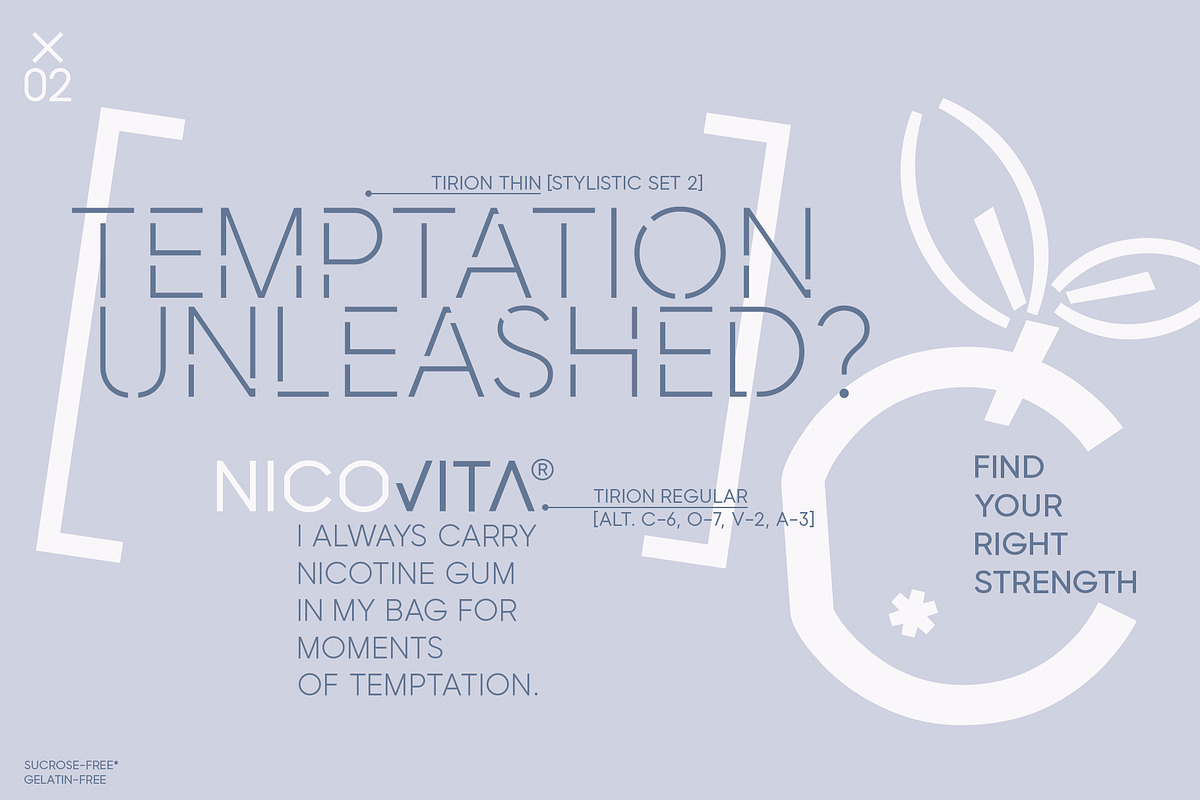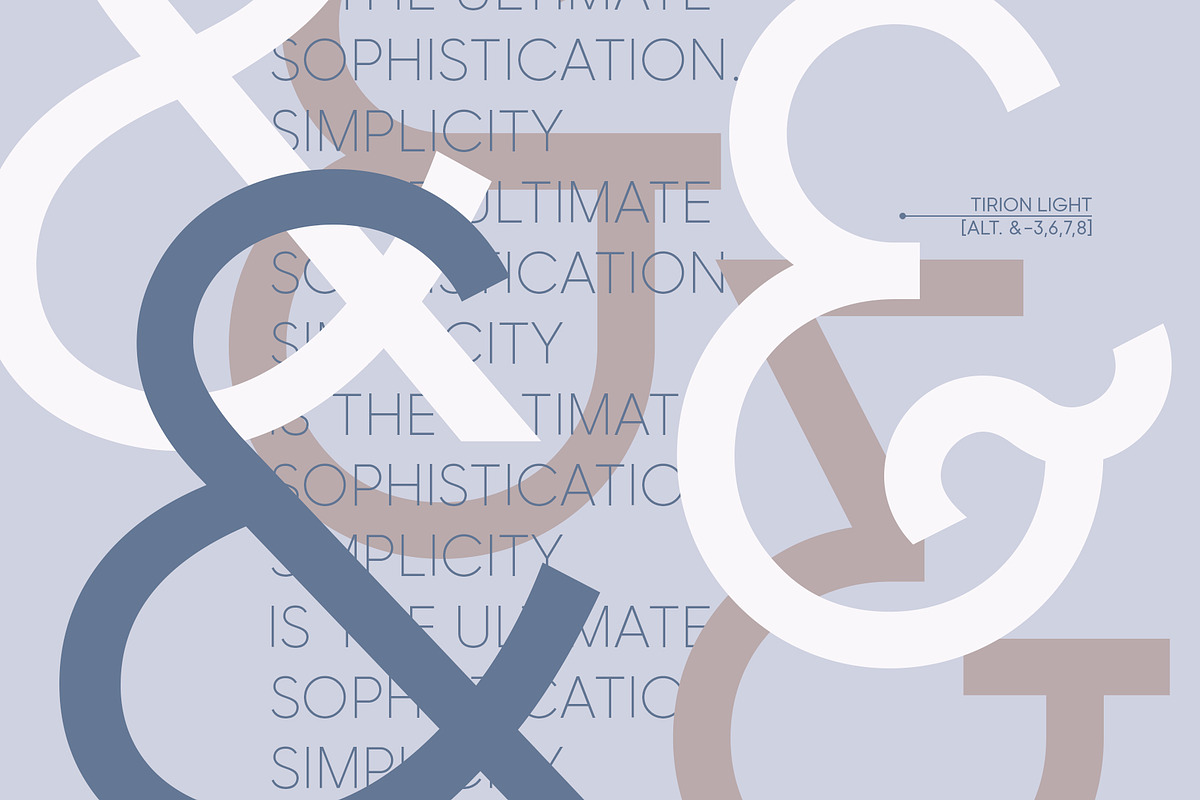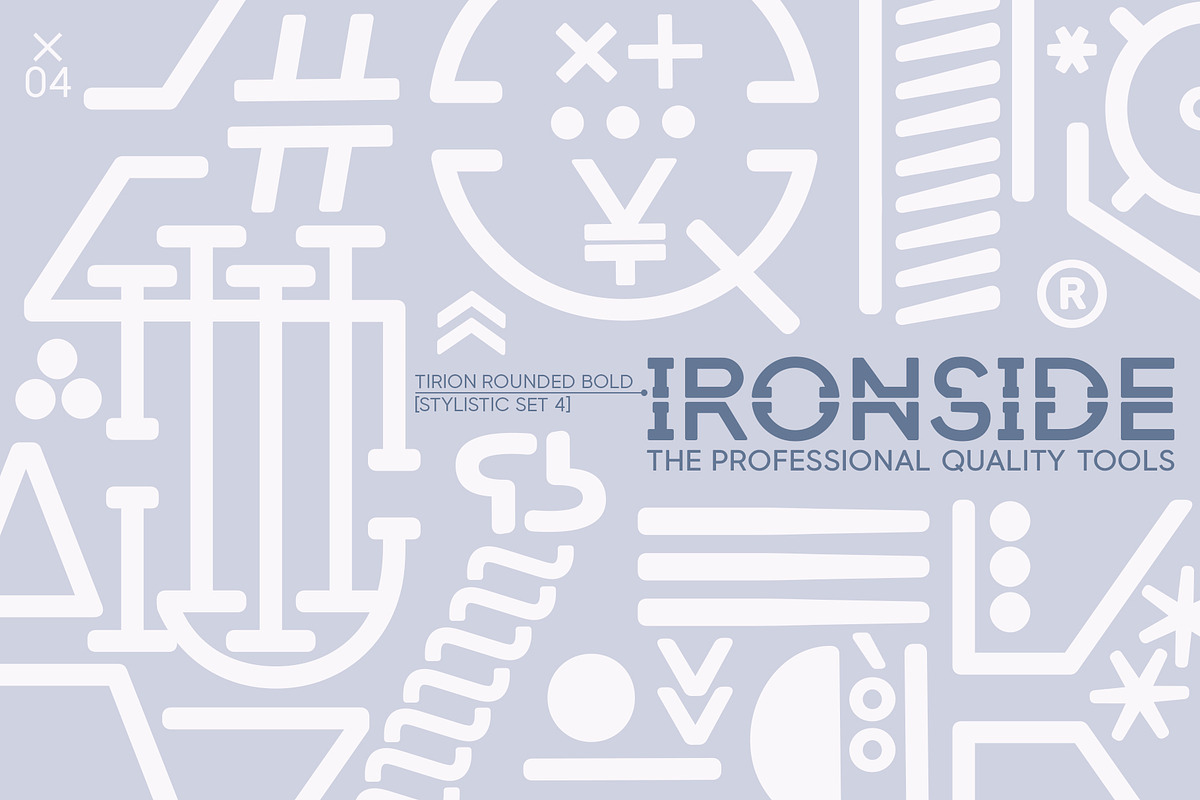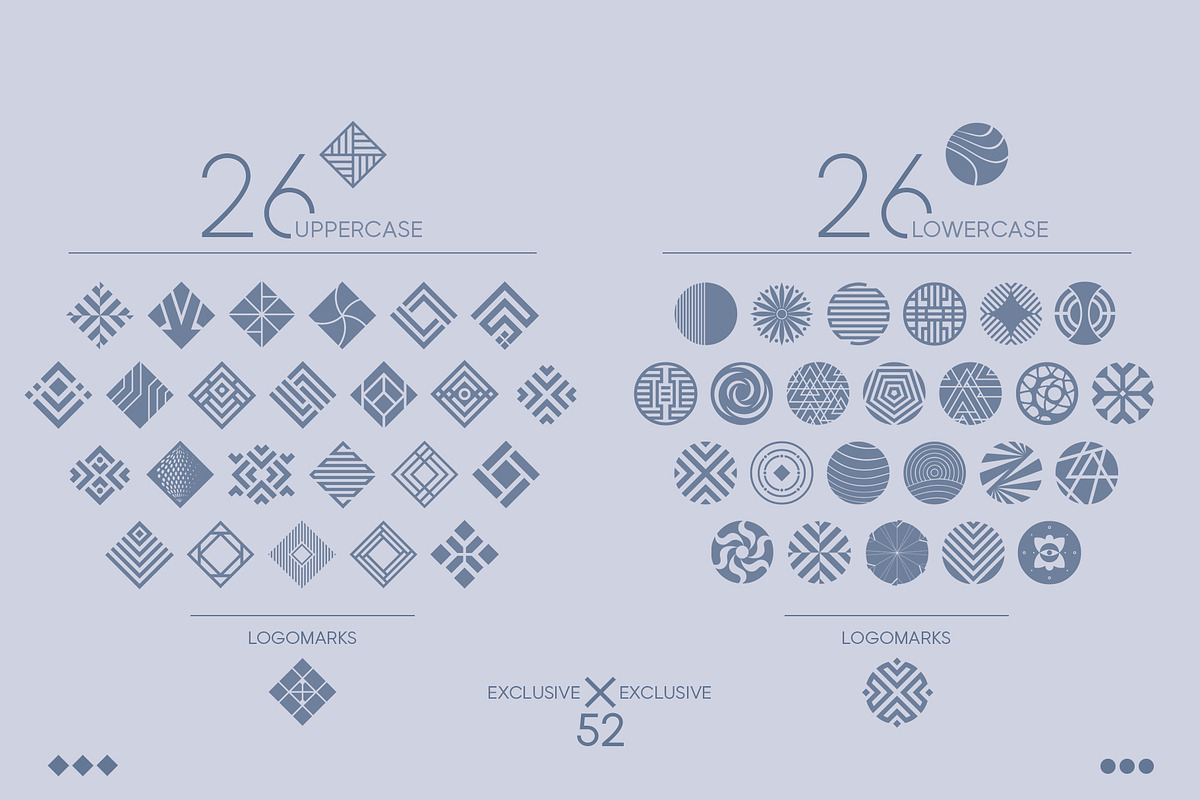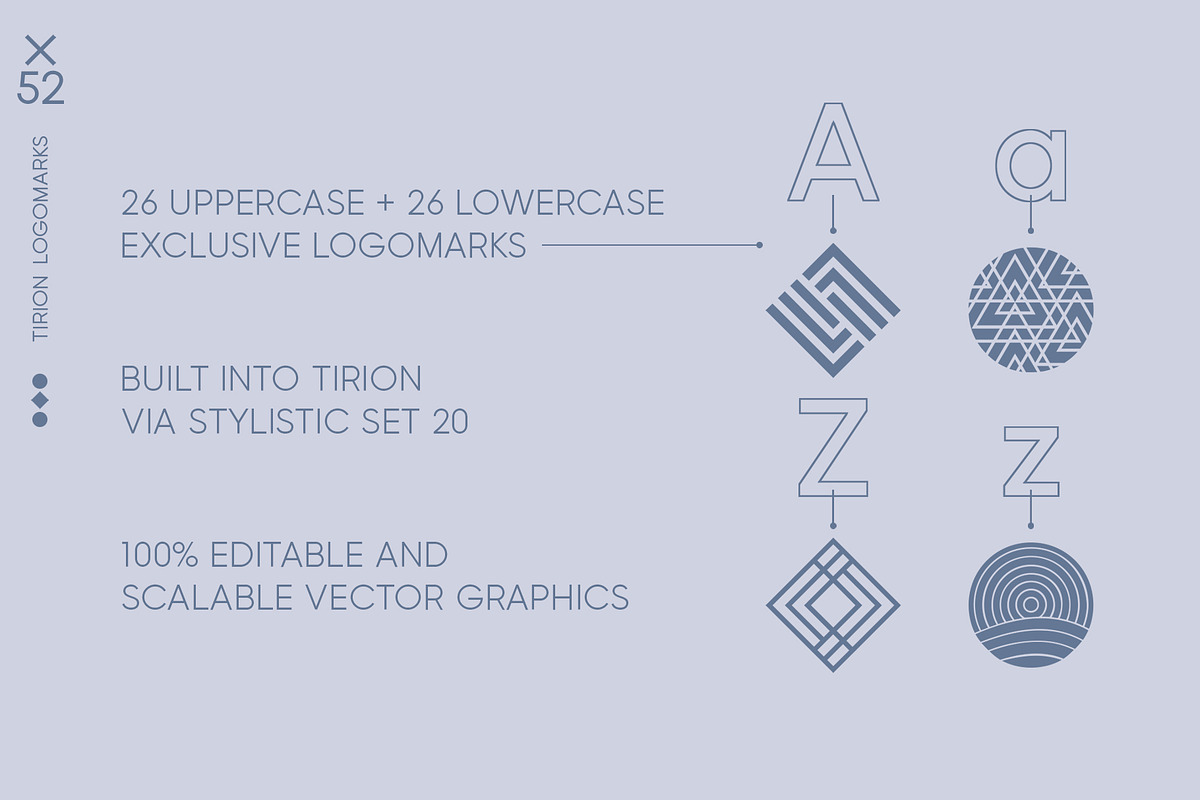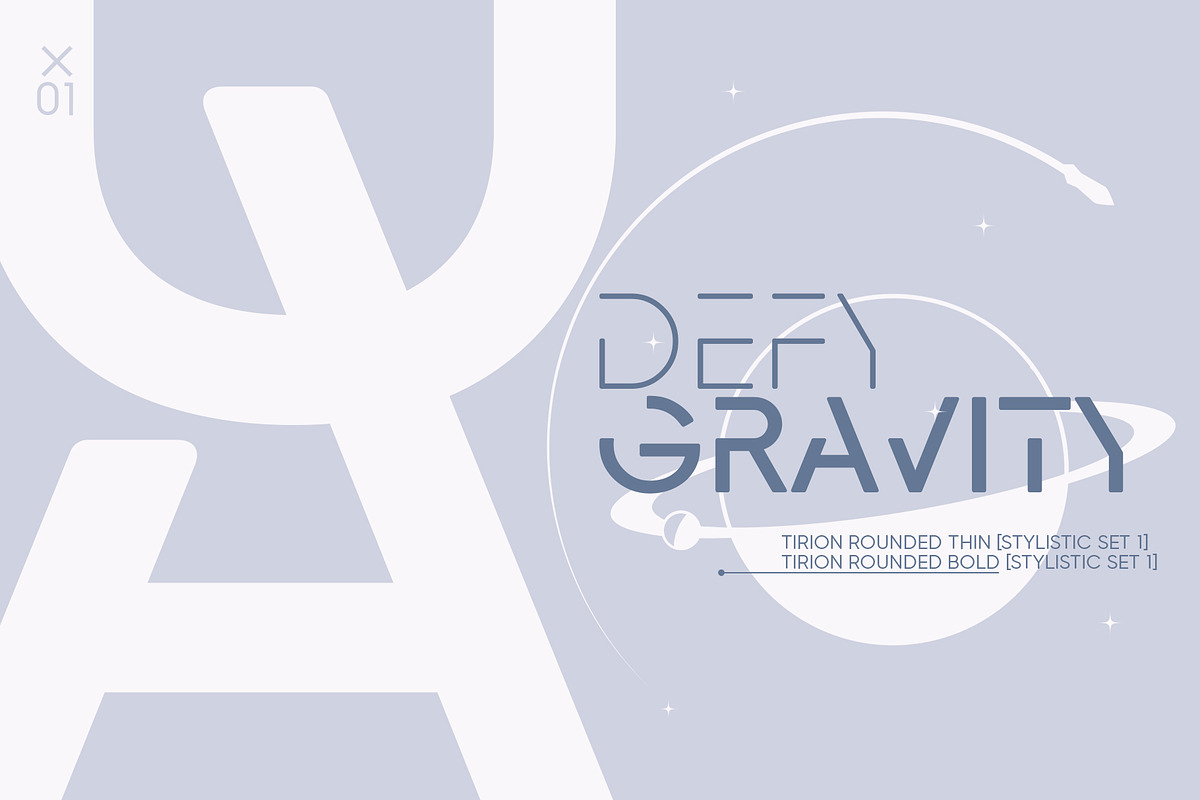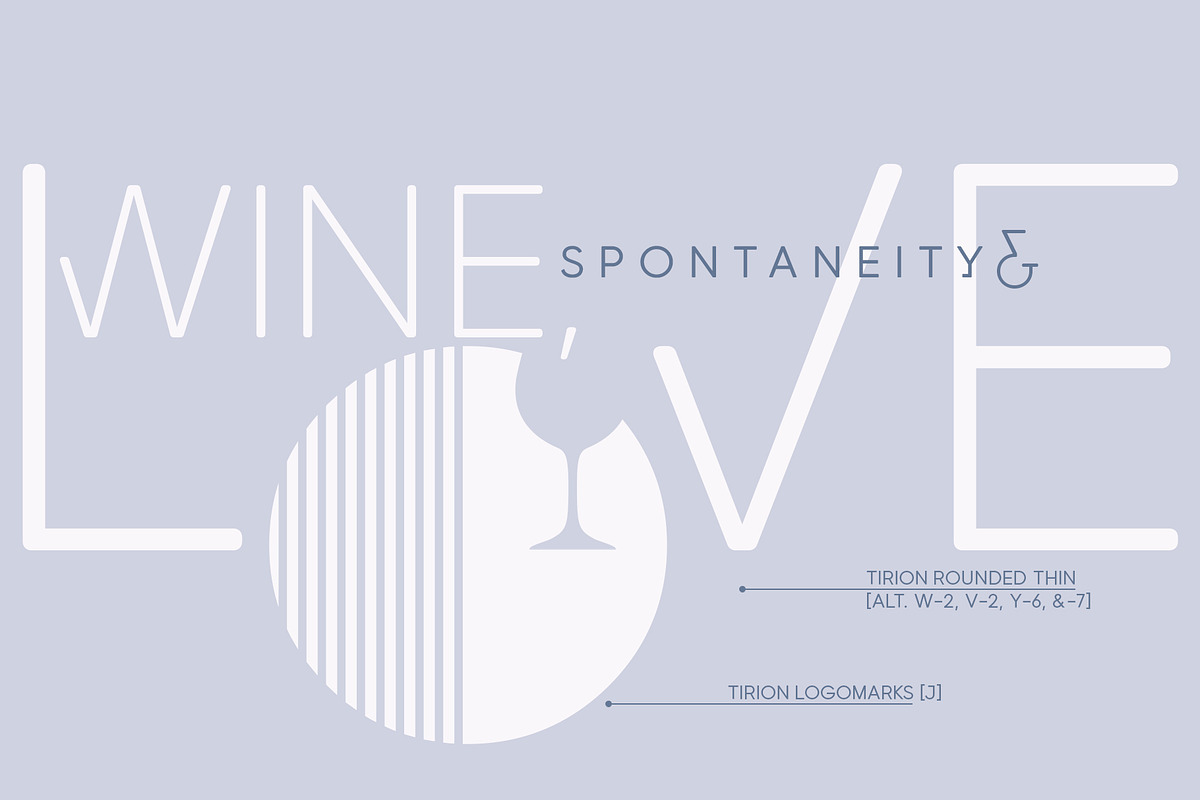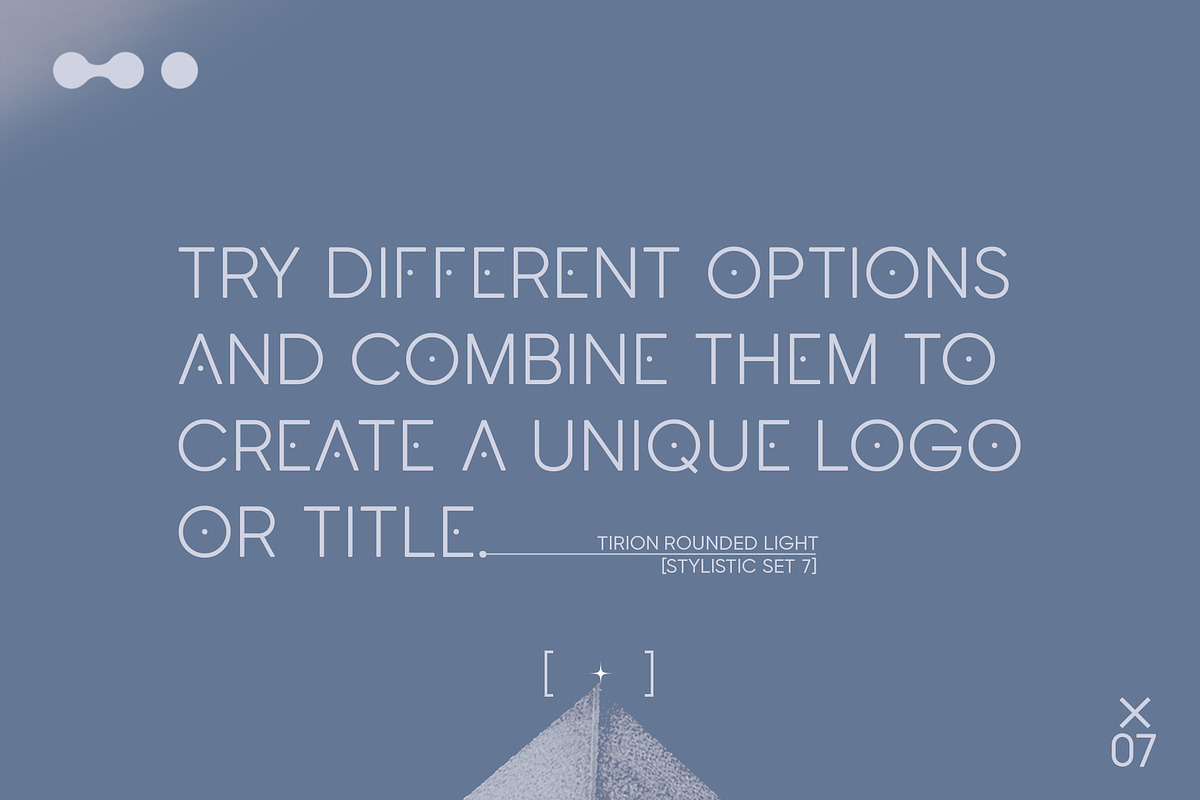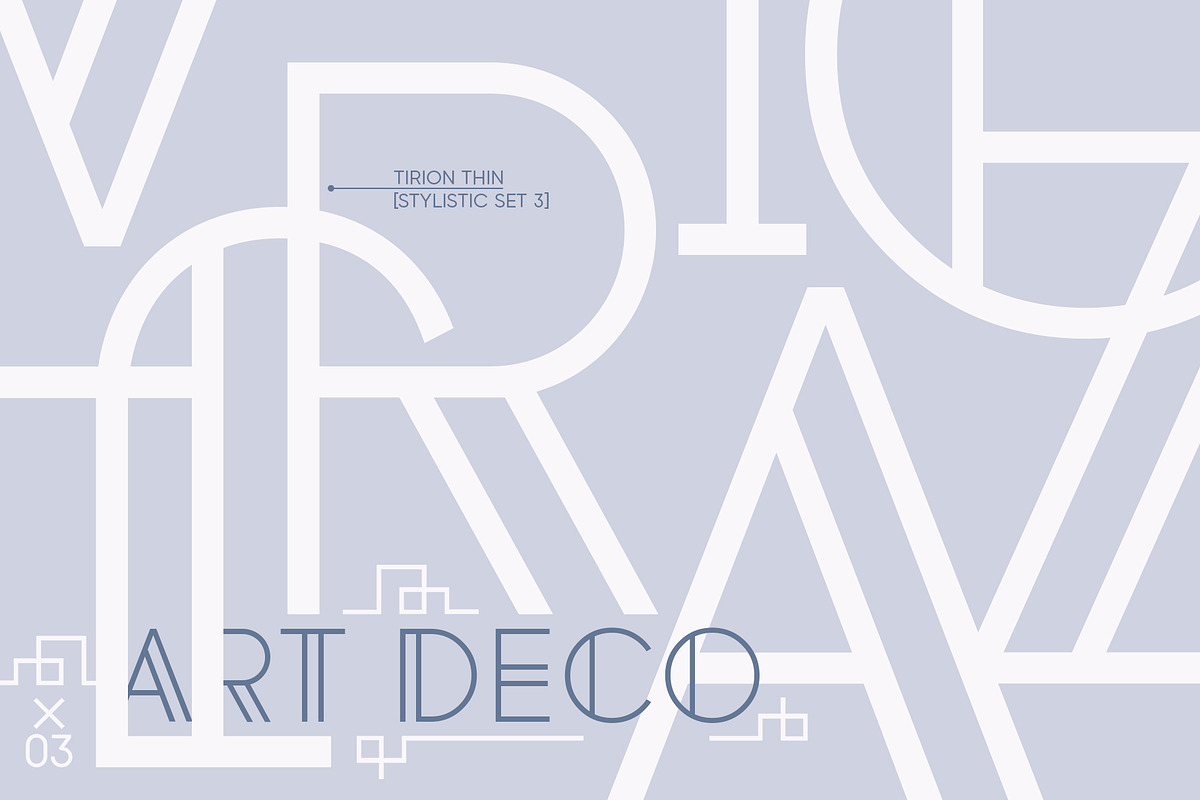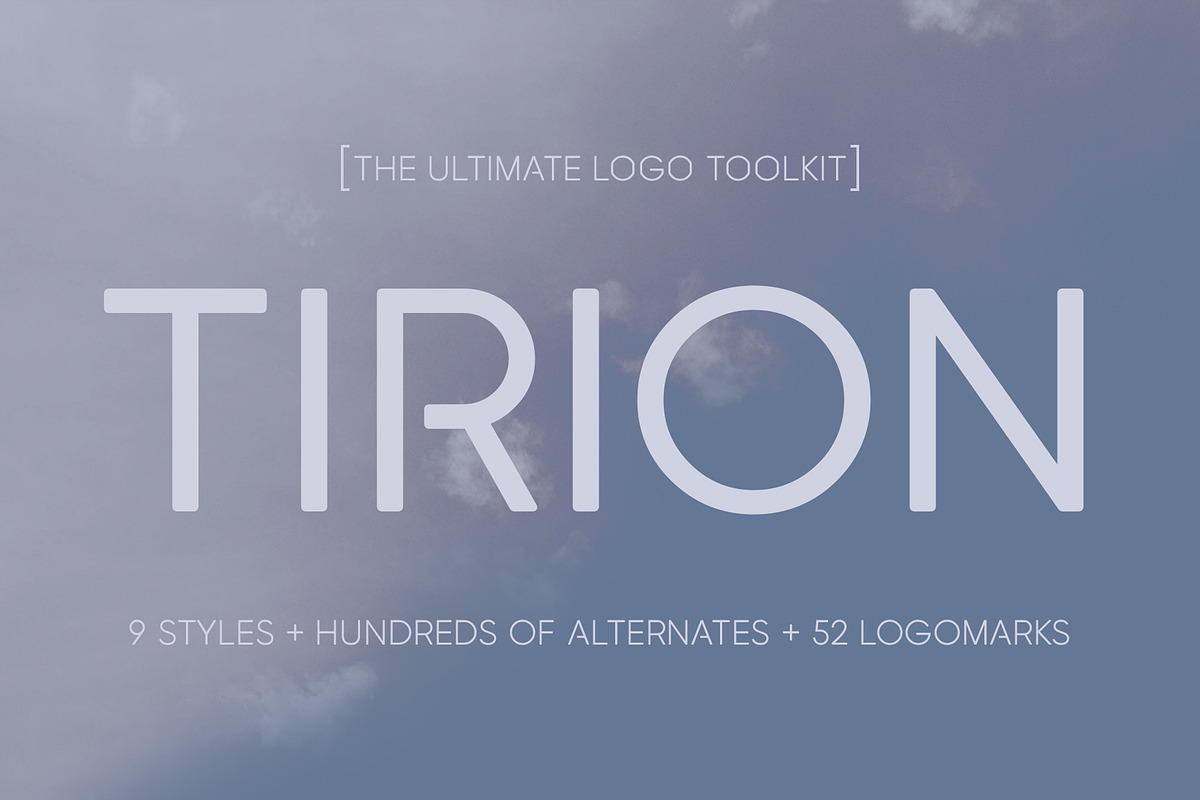
Tirion - The Ultimate Logo Toolkit
Tirion — Logo Powerhouse with Hundreds of Alternates. Every letter has up to 10 unique alternates + 9 stylistic sets — create unlimited custom logos and headlines in seconds, right in Photoshop or Illustrator. 980 glyphs packed with creative power. Built-in bonus that blows minds: 52 ready-to-use professional logomarks (26 uppercase + 26 lowercase) — activate Stylistic Set 20 and type A–Z / a–z for instant brand symbols. Perfect for branding, wordmarks, packaging, posters, fashion, tech — sharp minimalist or soft friendly vibe, you choose. Stop copying. Start creating logos clients can’t forget. Grab Tirion now.